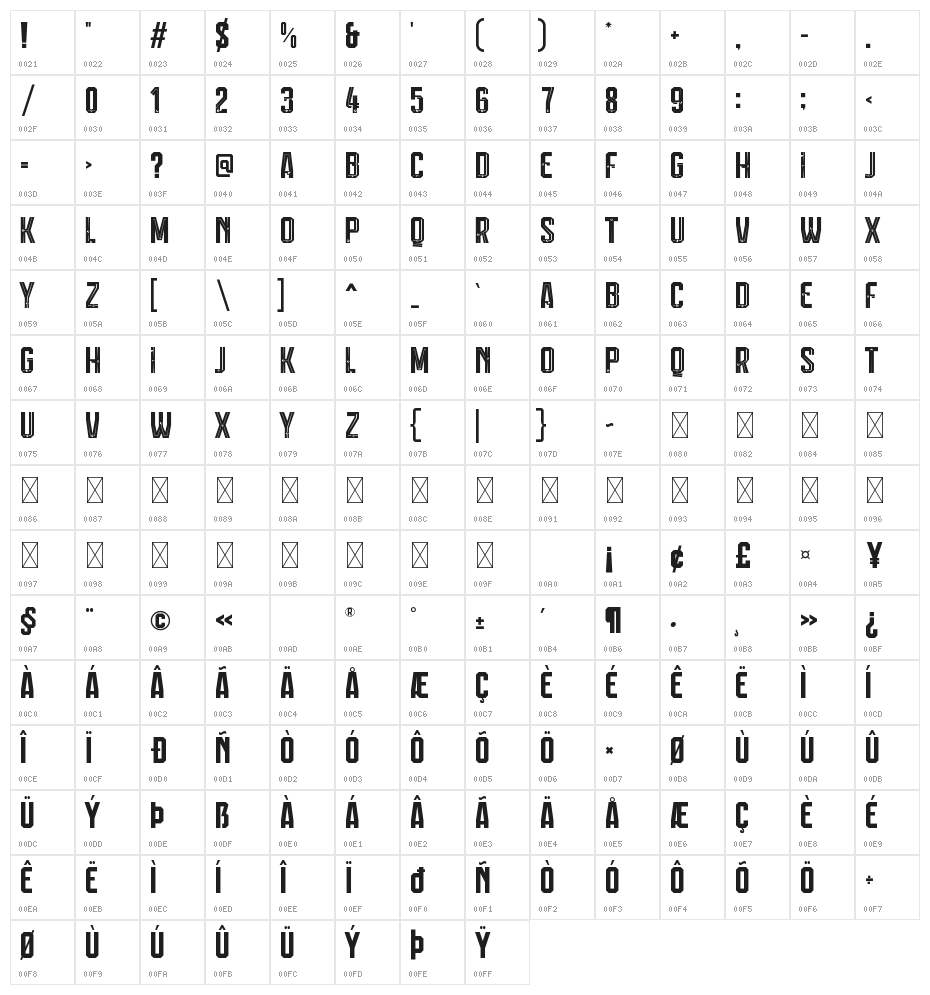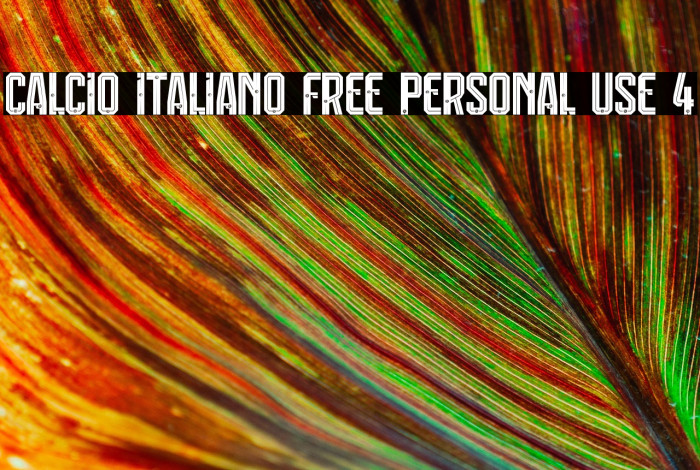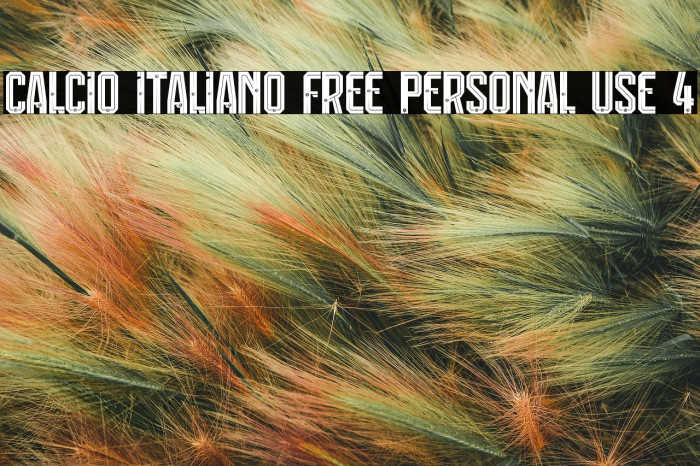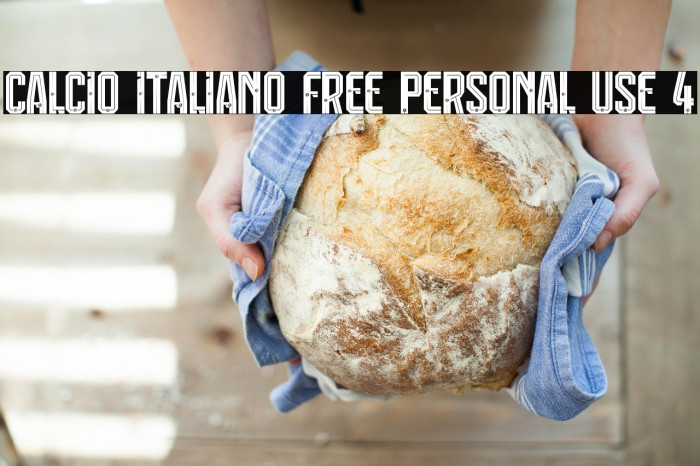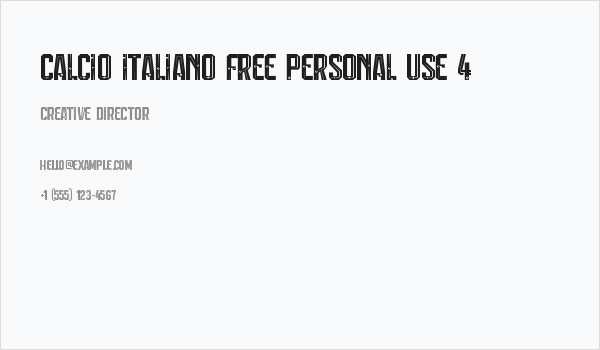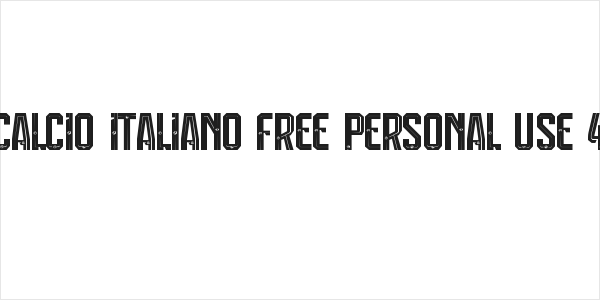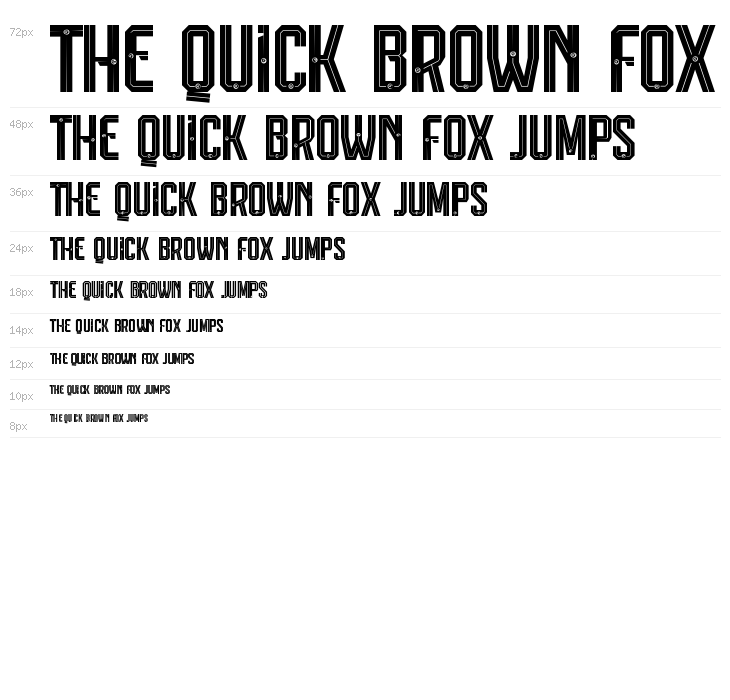
Calcio Italiano Free Personal Use 4 Font
Calcio Italiano Free Personal Use 4 Description
This font features a bold and industrial design with a mechanical aesthetic. Each character is constructed with a solid, block-like appearance, incorporating rivet-like details that enhance its industrial feel. The uppercase letters are uniform in height, while the numbers and special characters maintain a consistent style. The font's geometric structure and bold lines make it highly legible, even at smaller sizes. Its unique design elements, such as the rivet details, give it a distinctive look that stands out in any design project.
| Overall Style | Industrial, Mechanical |
| Proposed Projects | Ideal for projects requiring a strong, industrial aesthetic such as posters, branding for machinery or automotive companies, and themed event materials. |